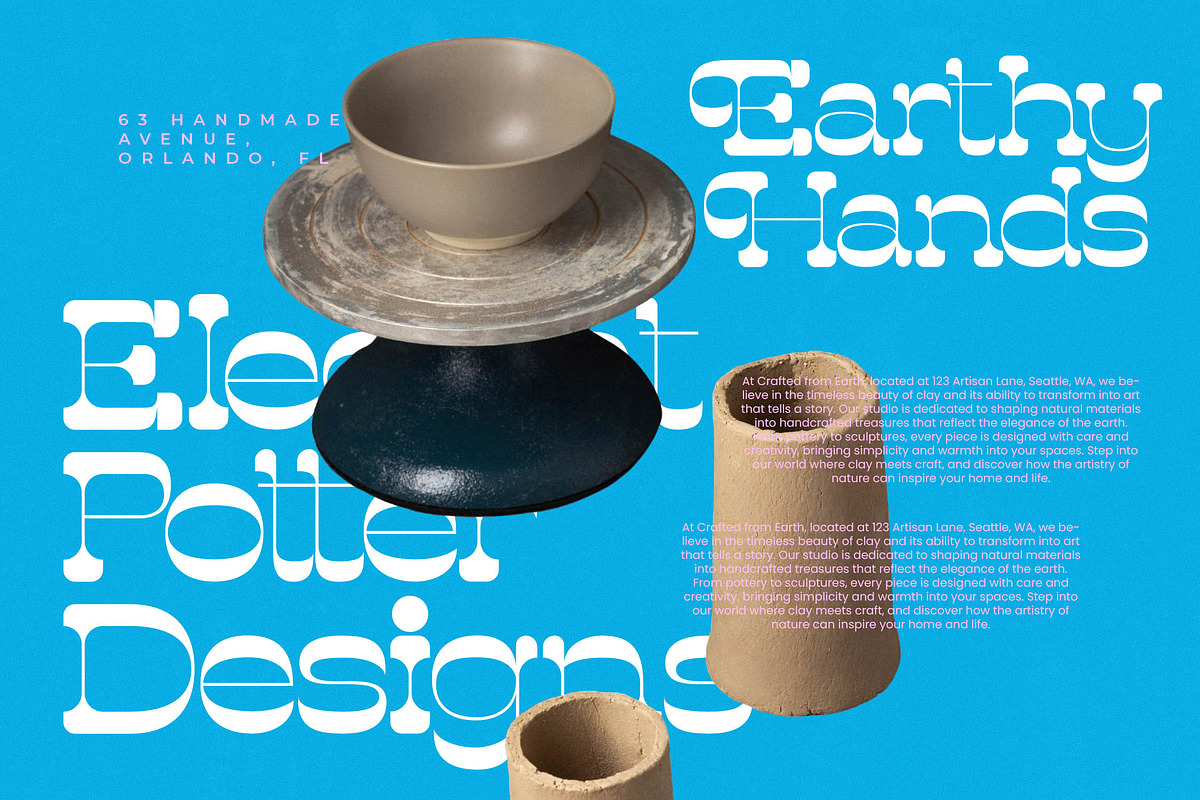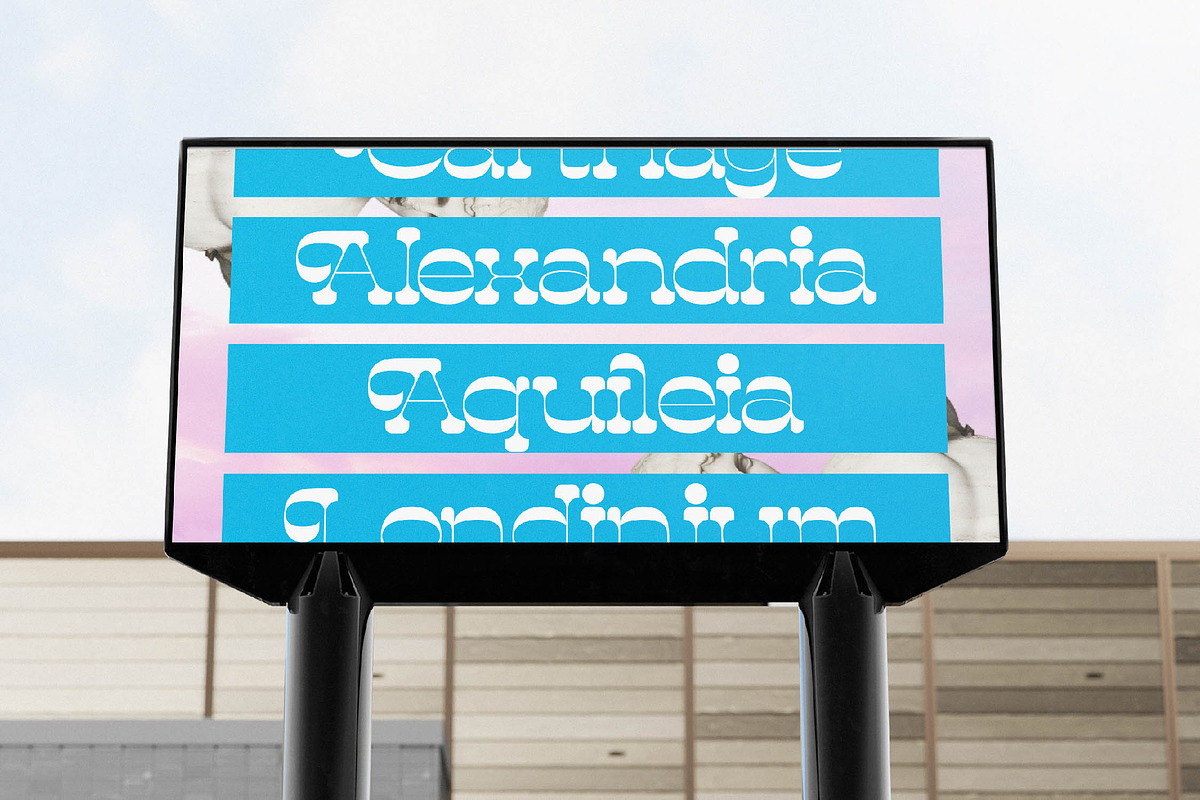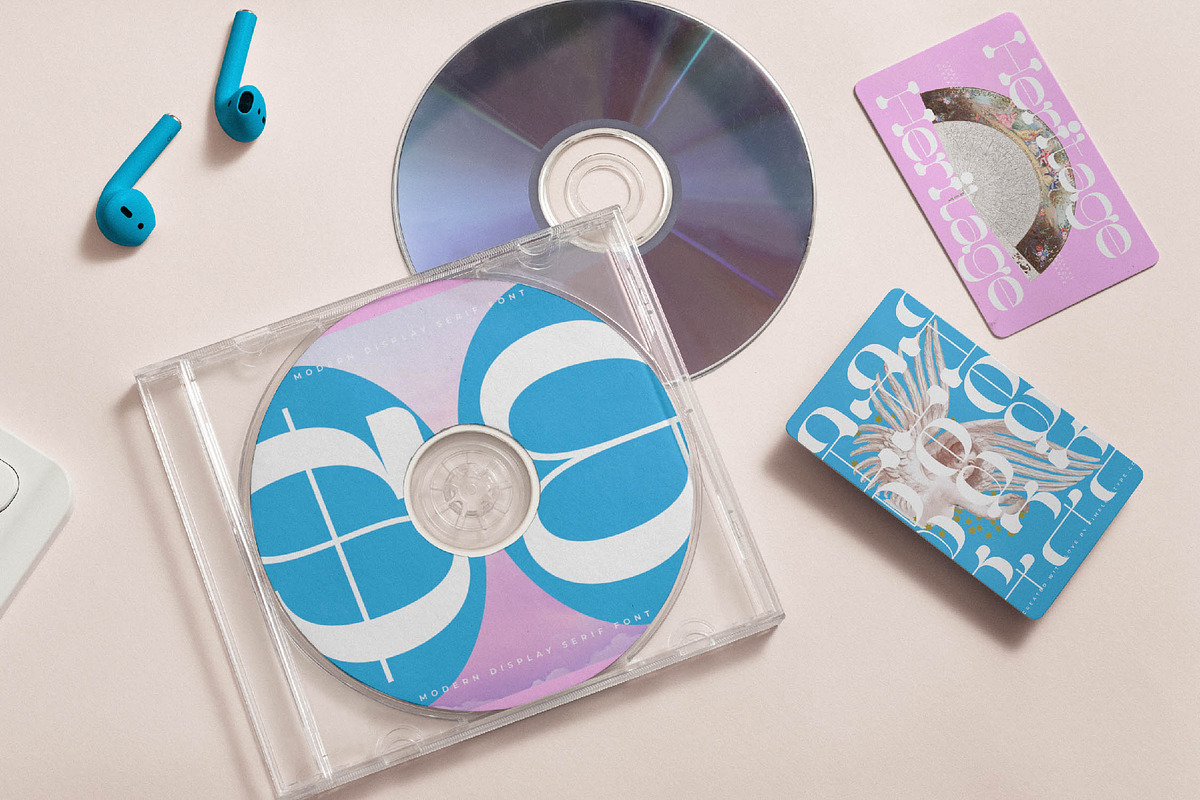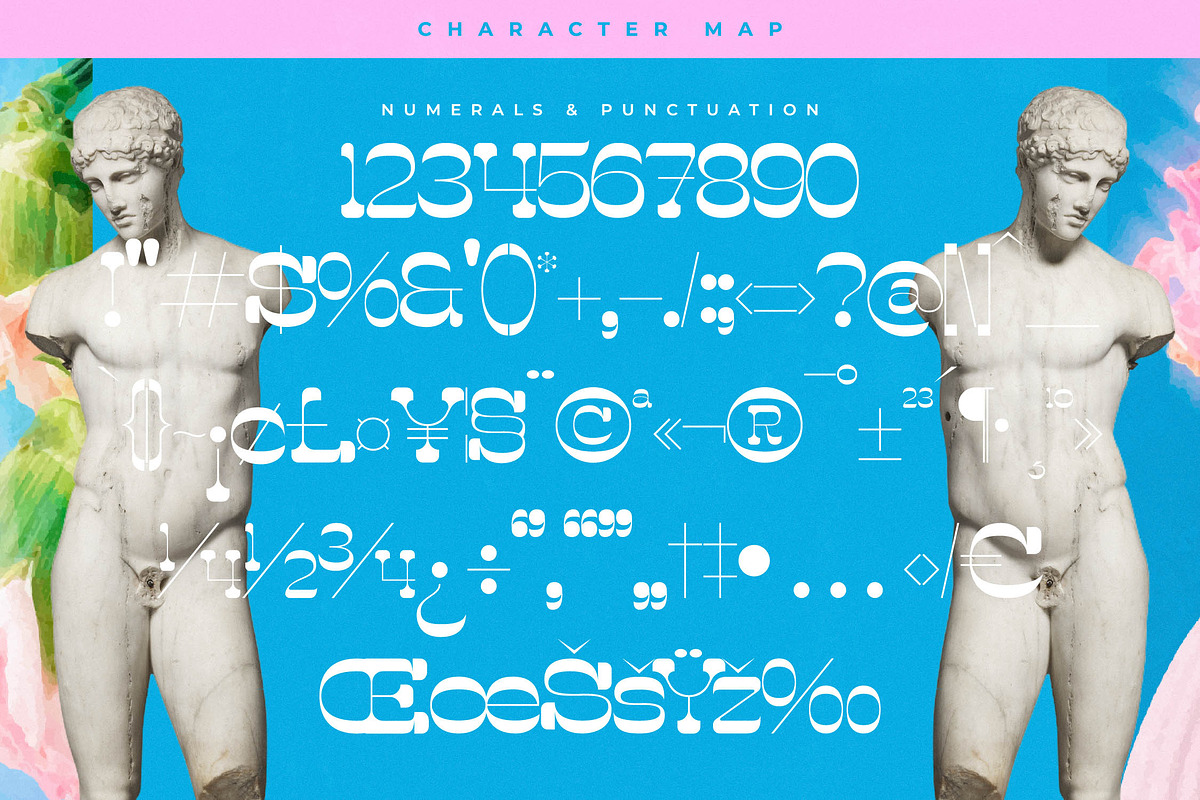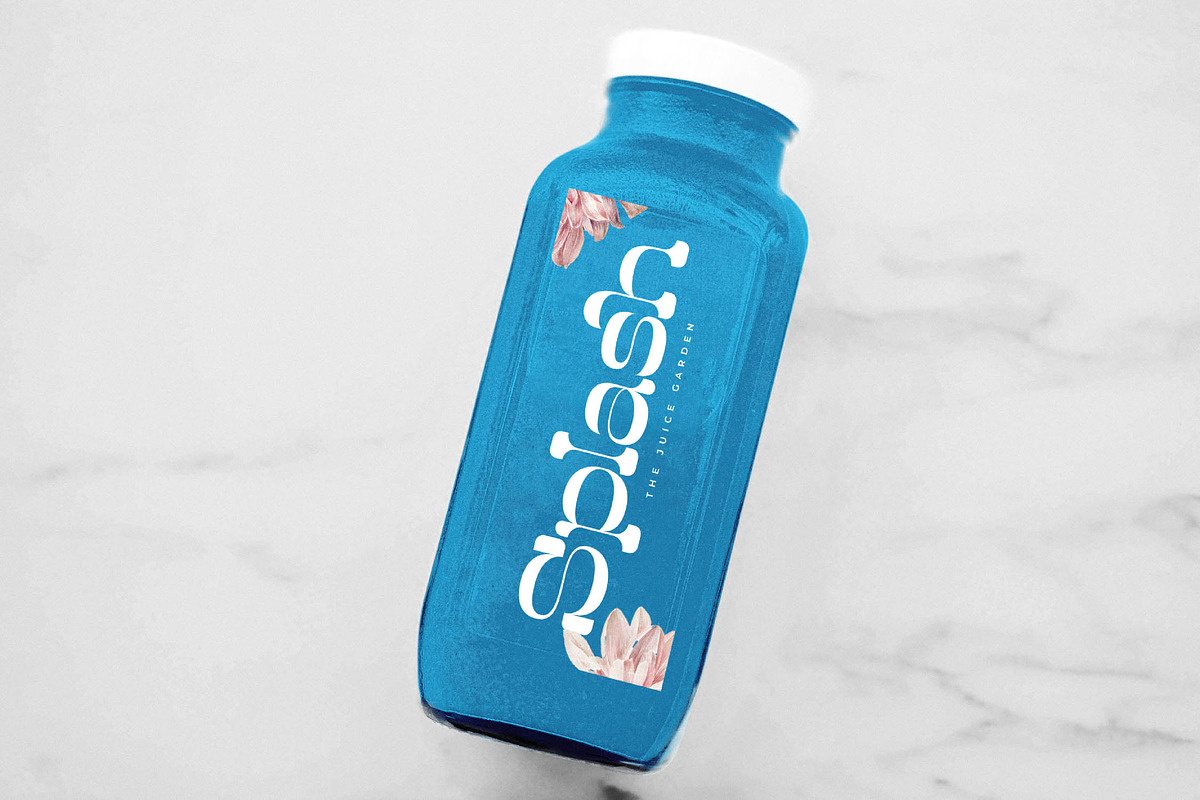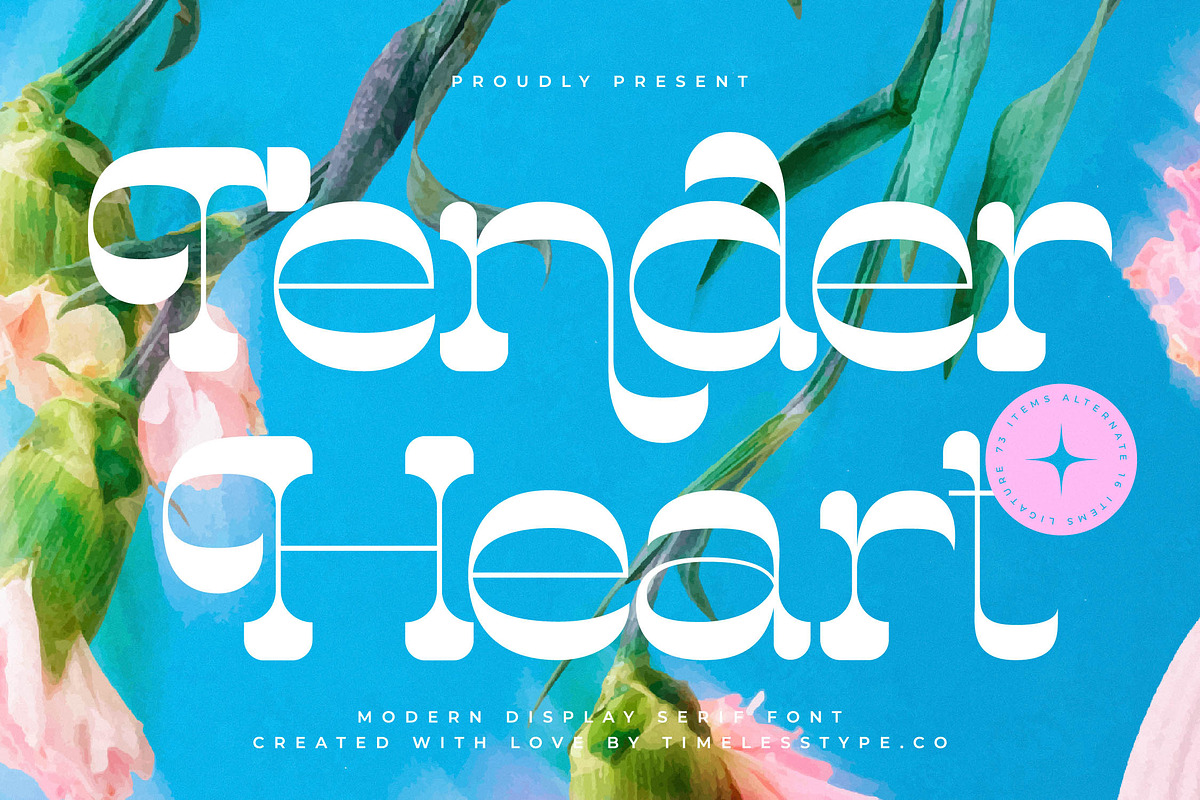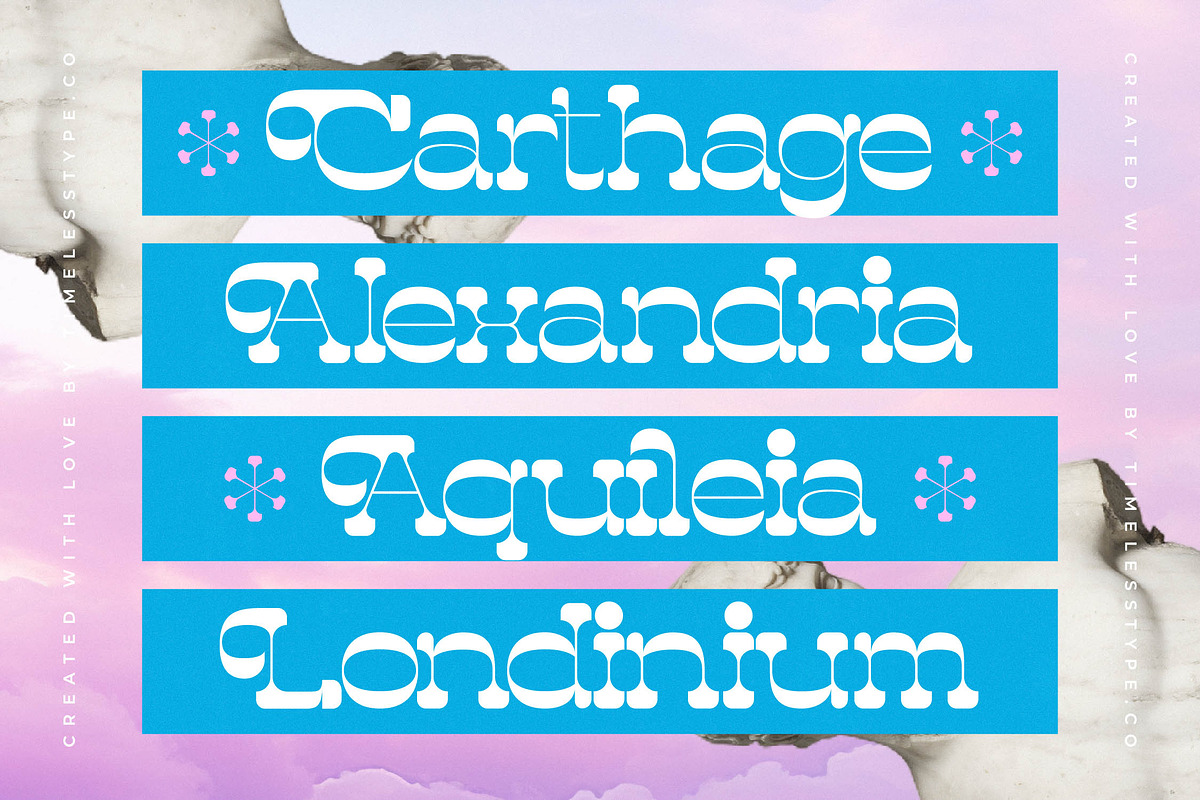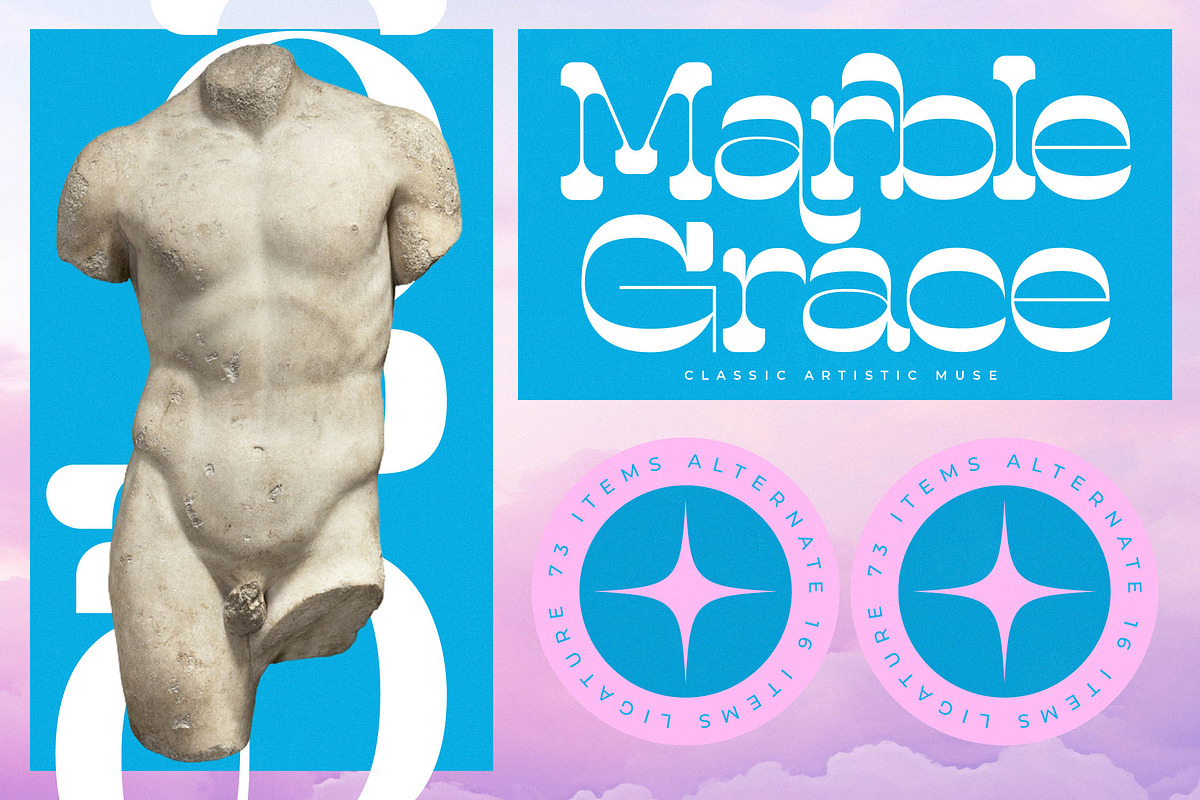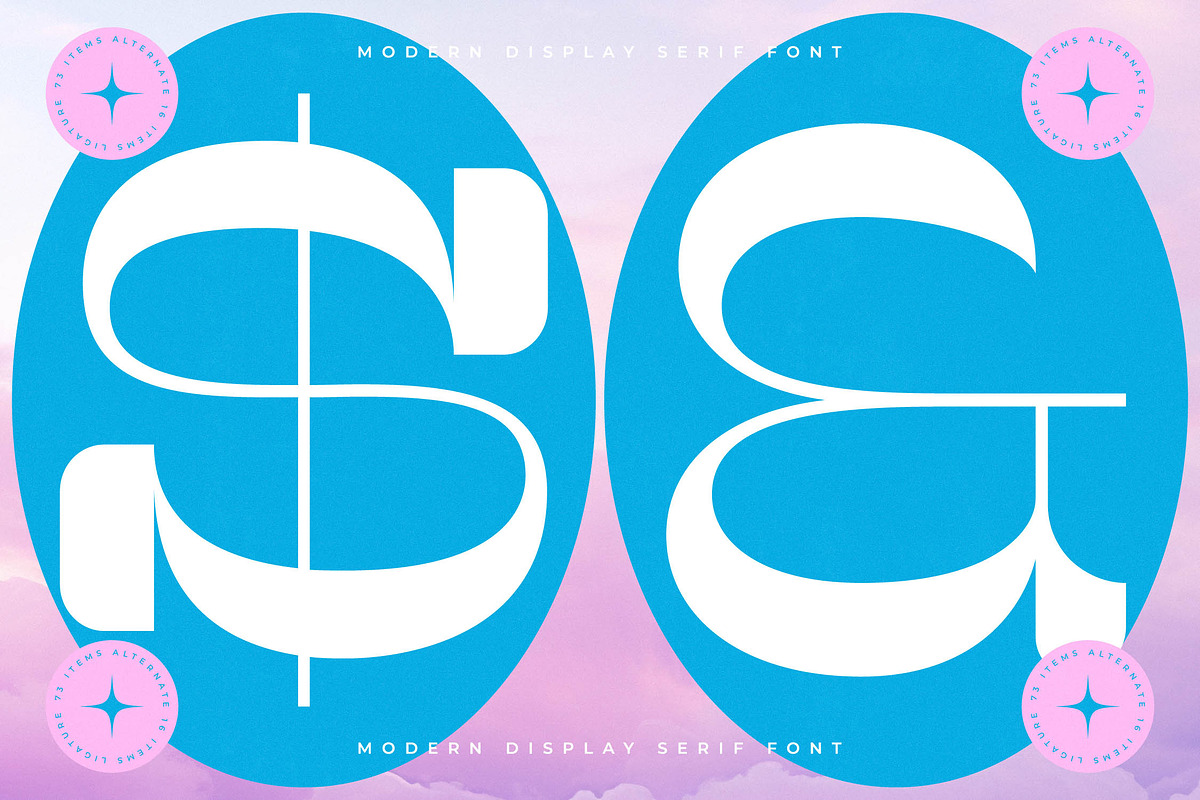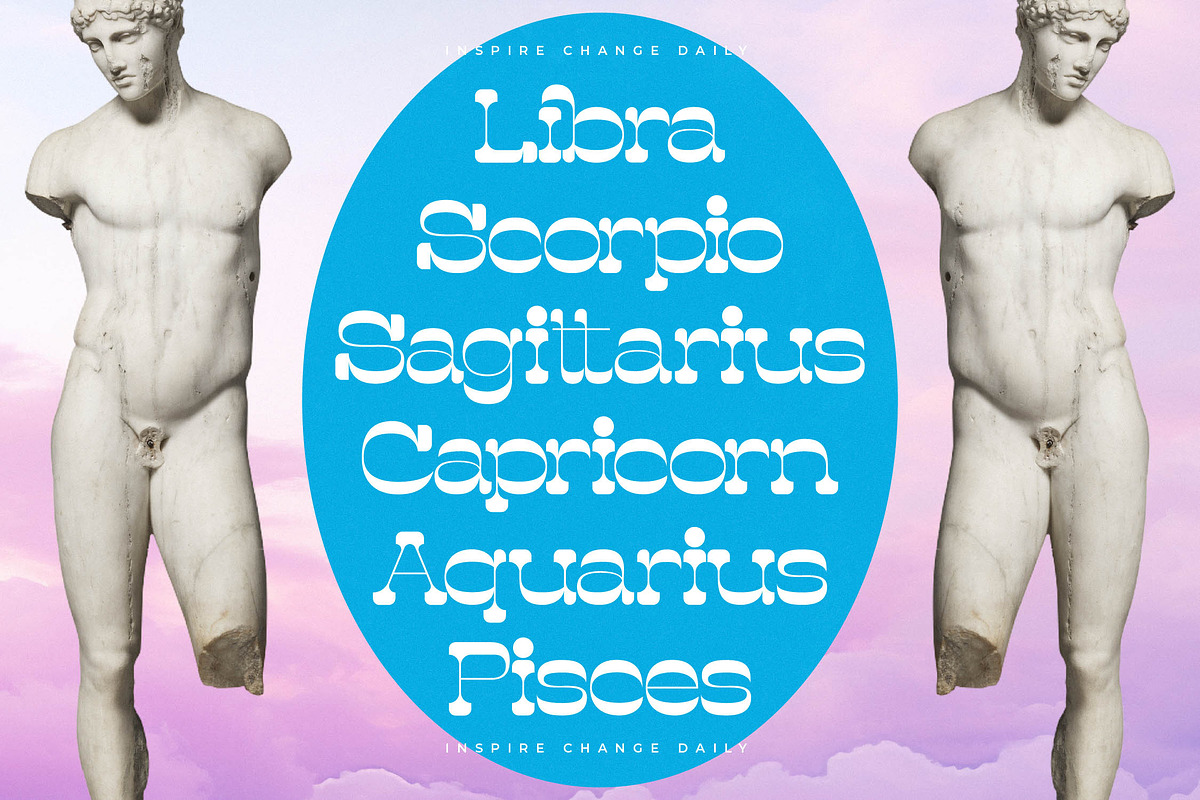
Tender Heart Modern Display Serif
Tender Heart captures the essence of soft sophistication, blending romantic curves with a bold, contemporary presence. It is a font designed to leave an unforgettable impression through its delicate balance of strength and grace.
Inspired by the fusion of classical elegance and modern pop culture, this typeface draws from the fluidity of natural forms and the structured beauty of ancient sculpture. The result is a visual narrative that feels both timeless and vibrantly current.
This modern serif display is engineered for luxury typography and high-end aesthetics, featuring a high-contrast serif design that demands attention. As an editorial font, it provides a unique branding impact that transitions seamlessly from digital screens to high-quality print.
Staying ahead of the modern serif trend, this typeface aligns perfectly with the current demand for editorial display fonts that offer personality. Its character-driven typography makes it an essential tool for designers looking to infuse projects with a sense of curated, boutique style.
From the foundations of a premium logo design to the intricate layers of a global branding campaign, this font excels in editorial layouts and luxury packaging. It is also an exquisite choice for high-end wedding stationery and avant-garde fashion lookbooks.
The typeface is packed with a rich selection of ligatures and creative alternates that allow for custom-tailored text arrangements. It also includes comprehensive multilingual support and a wide array of international characters to ensure global versatility.
- Ligature 16 Alternate 73